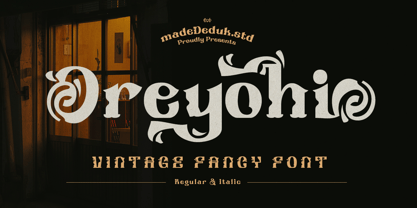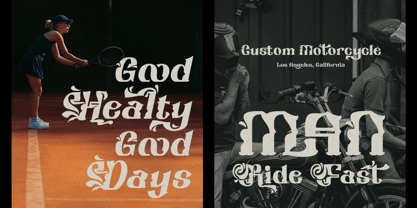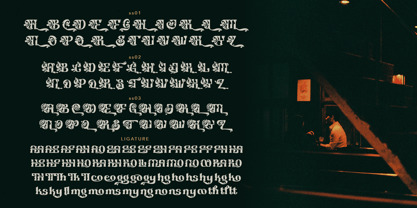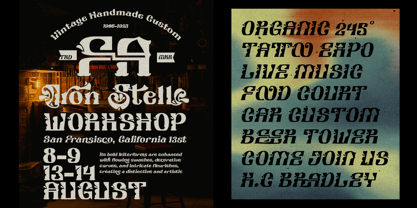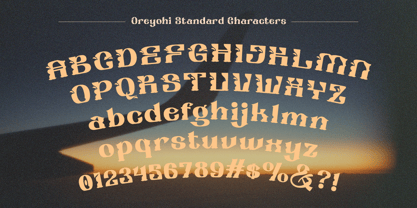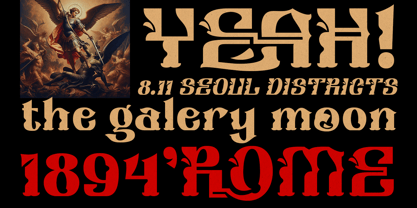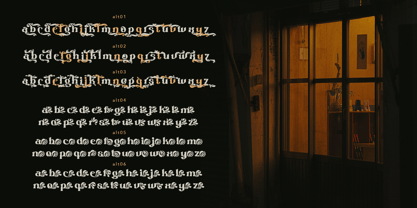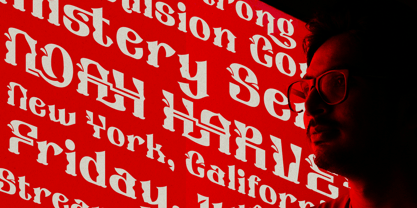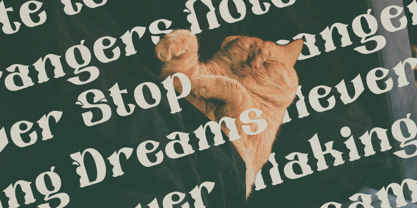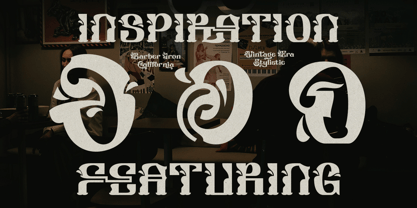
Oreyohi
by madeDeduk
The Oreyohi Font Family was designed by madededuk and published by madeDeduk. Oreyohi contains 2 styles and family package options. More about this family
Introducing Oreyohi, this font is a display typeface that features elegant ornamental details on every character. Its bold letterforms are enhanced with flowing swashes, decorative curves, and intricate flourishes, creating a distinctive and artistic appearance. The font is designed to deliver a strong visual identity while maintaining readability, making it an attractive choice for creative and expressive design projects.
This typeface is suitable for designs that require a strong visual impact, such as logos, product packaging, posters, headlines, branding materials, and social media content. The ornamental elements create an elegant and playful appearance, allowing the font to stand out in various design applications. With its unique character and refined details, this font not only serves as a communication tool but also enhances the overall aesthetic value and strengthens the visual identity of a design.